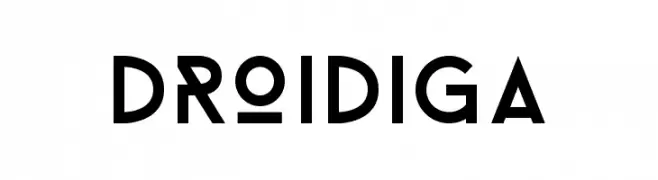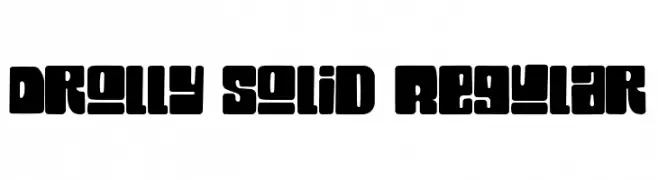
An elegant serif font with a classic italic slant and medium contrast.
A clean, serif font with a modern touch, ideal for readability and professional use.
A bold, condensed font with high contrast and a modern style.
A tall, narrow font with a modern, professional appearance.
A bold, geometric sans-serif font with a modern and clean design.
A modern, hand-drawn font with a quirky, artistic style.
A bold, highly readable serif font with modern proportions.
A bold, playful font with thick, rounded characters and a retro-modern style.
Iconic font with drone and technology-themed symbols.